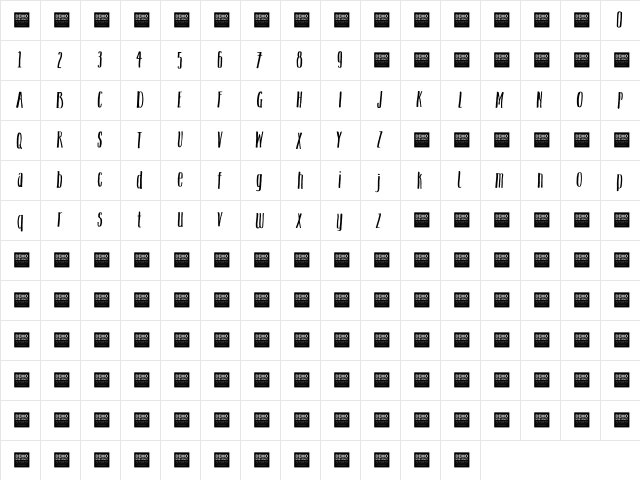
Spot Light - Demo Regular
Design Context for Spot Light - Demo Typeface
Spot Light - Demo offers clean, dependable letterforms without strong stylistic allegiance, making it a practical choice for designers who need flexibility. Its slender proportions lend an understated elegance to any composition.